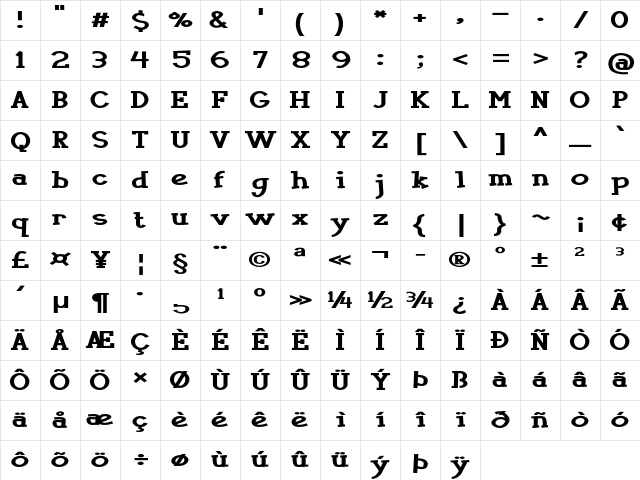
Chamomile Expanded Bold
Style: Expanded Bold
Chamomile Family
Chamomile Expanded Bold
Complete Chamomile Expanded Bold glyph index. Displaying only characters natively supported by Chamomile Expanded Bold font.
Design Context for Chamomile
Chamomile is a composed and adaptable typeface that performs quietly and consistently across a wide range of design contexts. Its bold stroke weight gives it real presence on the page.